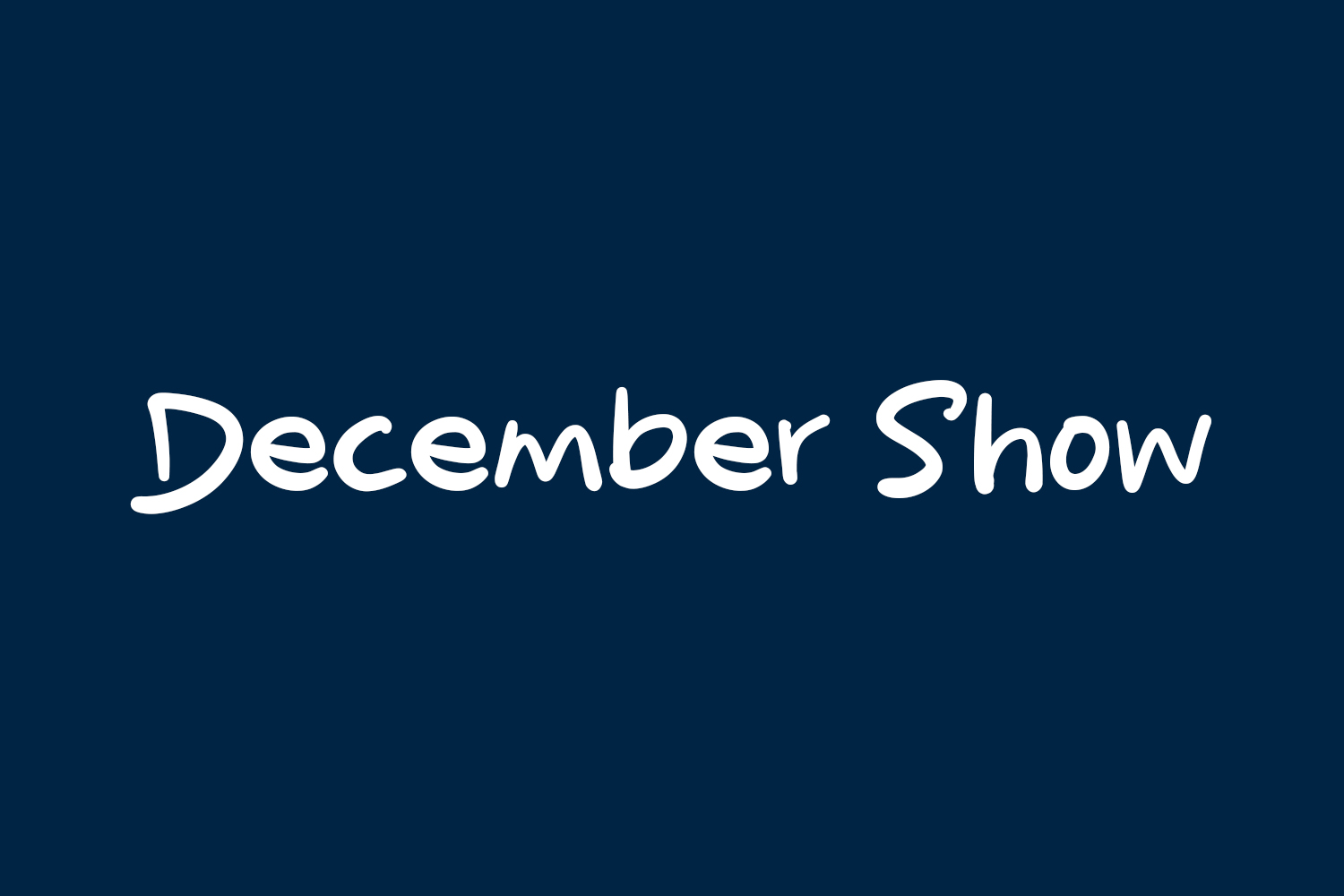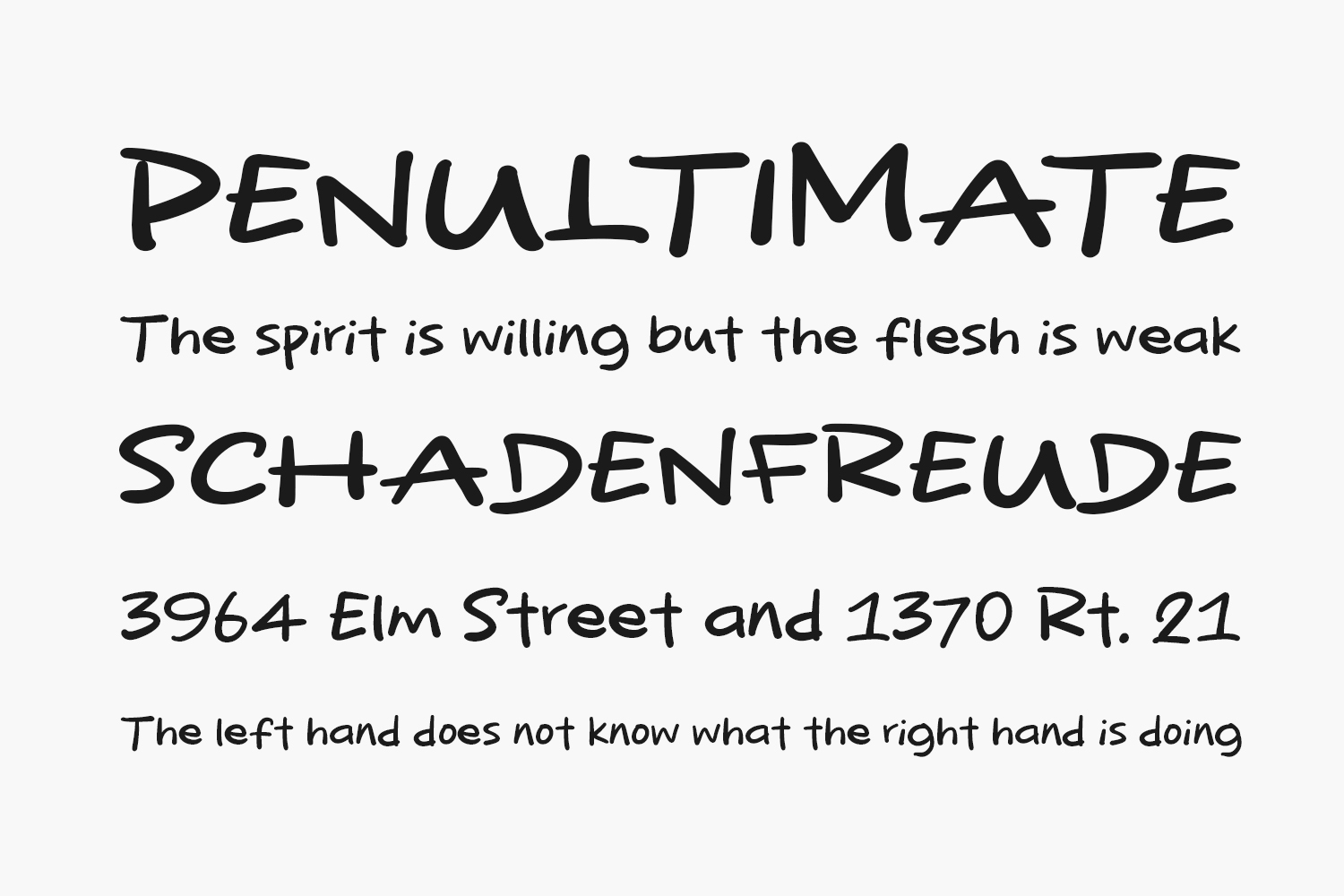
Introducing December Show Free Font, a contemporary and handcrafted font ideal for a myriad of design applications such as posters, logos, magazines, book covers, banners, and beyond! Elevate your creative projects with this exceptional font, as it effortlessly adapts to a wide range of design endeavors. Unleash its charm on your imaginative ideas and experience how it effortlessly makes them stand out. December Show Free Font was designed by Khurasan and is free for personal or commercial use.